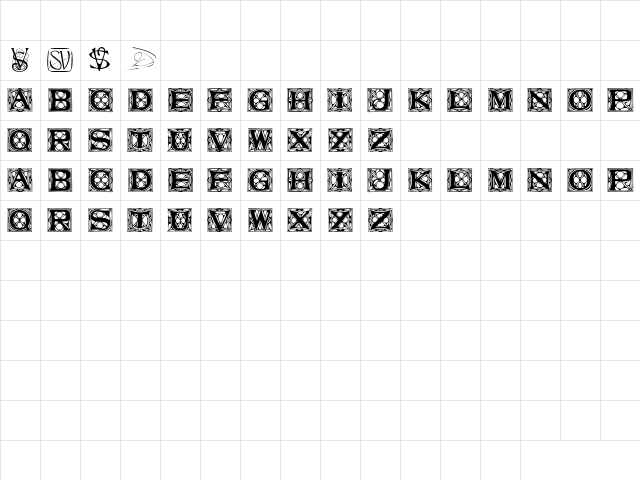
VarahCaps Regular Free Font
VarahCaps Regular
Design Context for VarahCaps
VarahCaps is a composed and adaptable typeface that performs quietly and consistently across a wide range of design contexts.